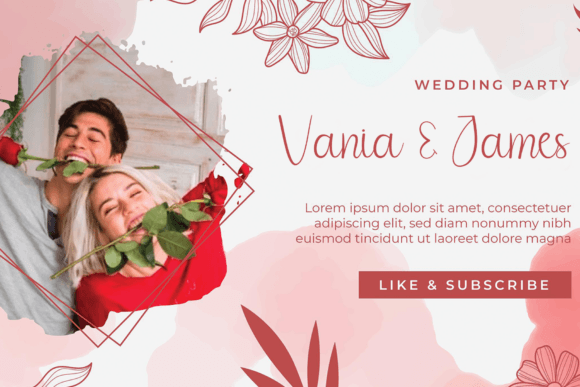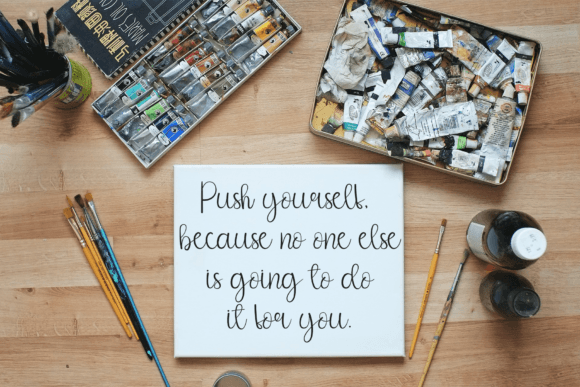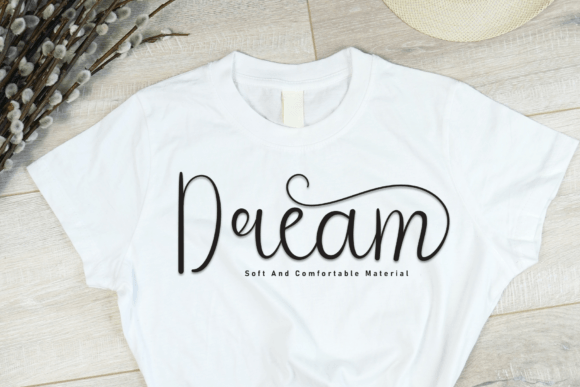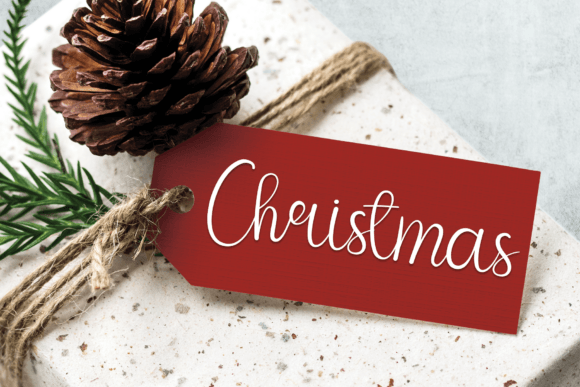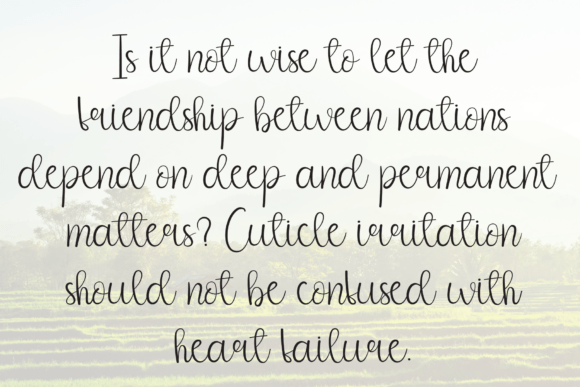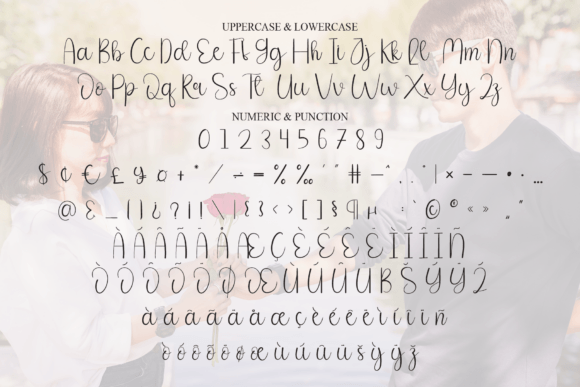
Introducing Bianca Romantic Font: The Perfect Blend of Playful and Elegant
Are you a designer or crafter looking for a font that can add a touch of whimsy and romance to your creative projects? Look no further than Bianca Romantic Font. This beautiful font is an endearing blend of playful and elegant, making it perfect for creating heartwarming wedding invitations, heartfelt cards, and other designs that require a dash of joyful flair.
The Characteristics of Bianca Romantic Font
Bianca Romantic Font is a unique and charming font that boasts a range of characteristics that make it perfect for a variety of design projects. Some of its key features include:
- Playful and Elegant: Bianca Romantic Font strikes the perfect balance between playful and elegant, making it suitable for a wide range of design projects.
- Whimsical Touch: This font is designed to add a touch of whimsy to your designs, making it perfect for creating wedding invitations, cards, and other heartfelt projects.
- Heartwarming: Bianca Romantic Font is designed to evoke emotions and create a sense of warmth and connection, making it perfect for projects that require a personal touch.
Uses for Bianca Romantic Font
Bianca Romantic Font is a versatile font that can be used for a wide range of design projects, including:
- Wedding Invitations: Create beautiful and heartwarming wedding invitations that set the tone for a special day.
- Heartfelt Cards: Design personalized cards for special occasions, such as anniversaries, birthdays, and holidays.
- Greeting Cards: Create a range of greeting cards, from get well cards to thank you cards, that are sure to delight.
- Stationery: Add a touch of elegance and whimsy to your stationery, including notebooks, journals, and letterheads.
Why Choose Bianca Romantic Font?
There are many fonts to choose from, but Bianca Romantic Font stands out from the crowd. Here are just a few reasons why:
- Unique and Charming: Bianca Romantic Font is a one-of-a-kind font that is sure to capture the attention of your audience.
- Easy to Read: This font is designed to be easy to read, making it perfect for a wide range of design projects.
- Versatile: Bianca Romantic Font can be used for a wide range of design projects, from wedding invitations to stationery.
Tips for Using Bianca Romantic Font
Here are a few tips for getting the most out of Bianca Romantic Font:
- Pair with Other Fonts: Bianca Romantic Font pairs well with other fonts, so don’t be afraid to experiment with different combinations.
- Use for Headings and Titles: This font is perfect for headings and titles, where you want to make a statement.
- Add a Personal Touch: Use Bianca Romantic Font to add a personal touch to your designs, making them more special and meaningful.
Bianca Romantic Font is a beautiful and versatile font that is perfect for designers and crafters looking to add a touch of whimsy and romance to their creative projects. With its unique blend of playful and elegant characteristics, this font is sure to capture the attention of your audience and leave a lasting impression. Whether you’re creating wedding invitations, heartfelt cards, or stationery, Bianca Romantic Font is the perfect choice.